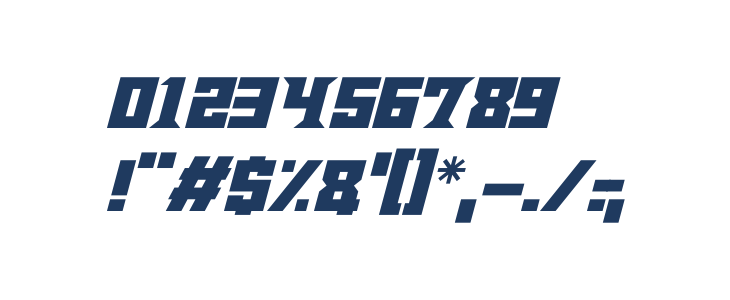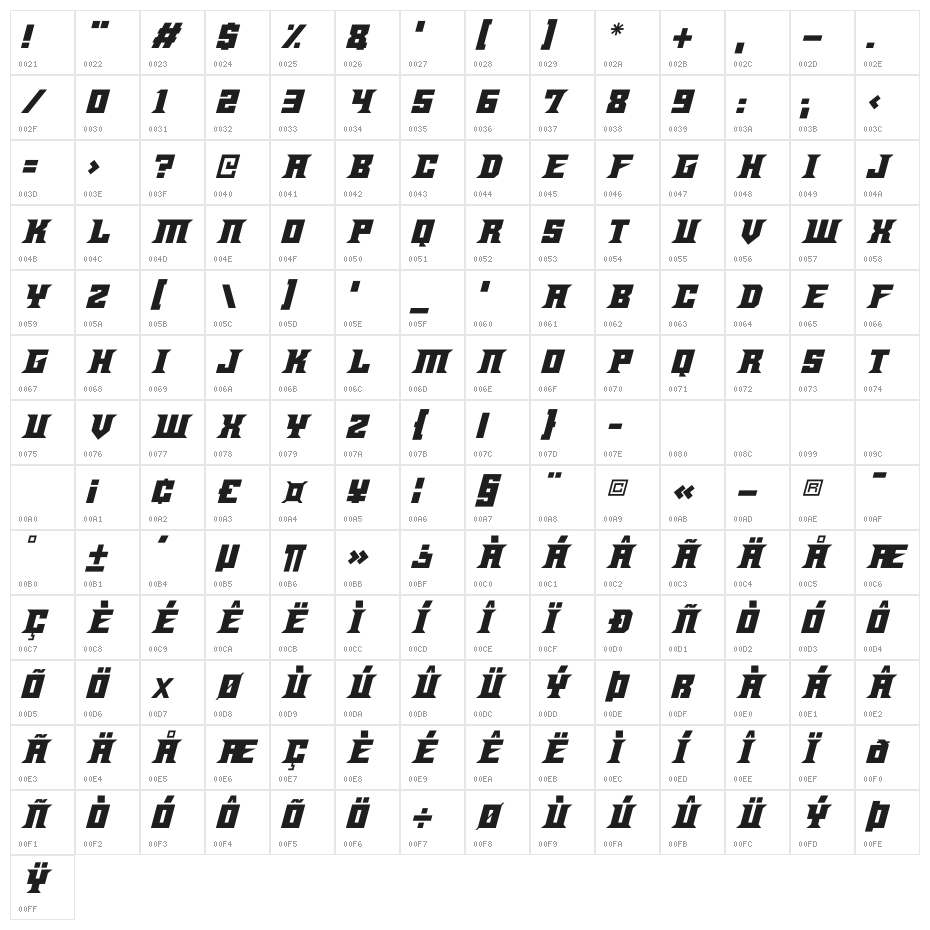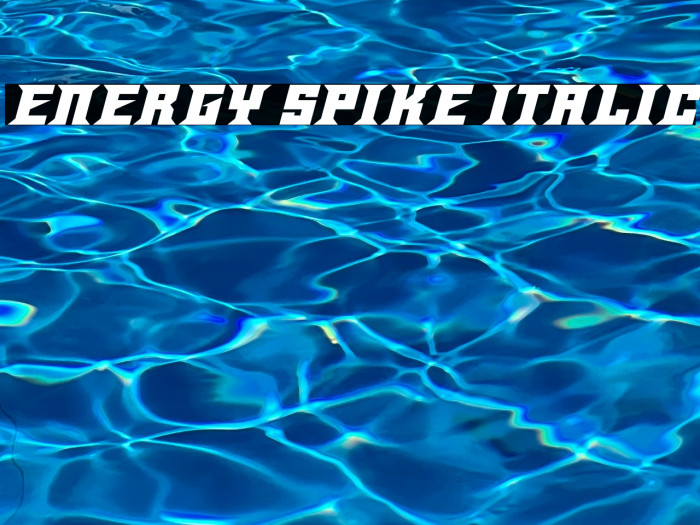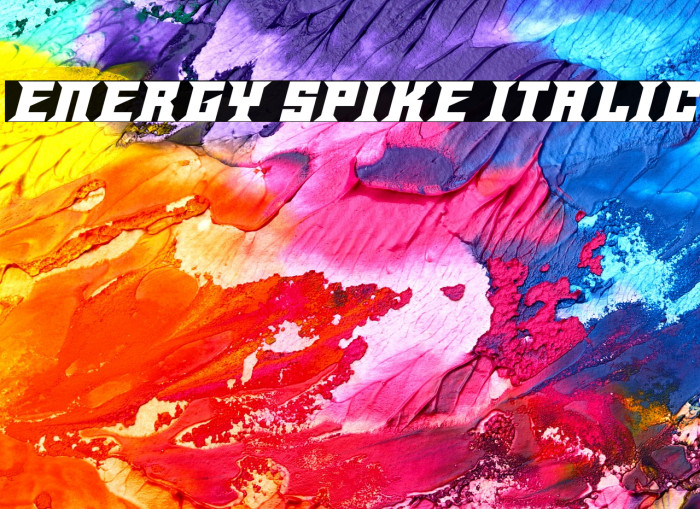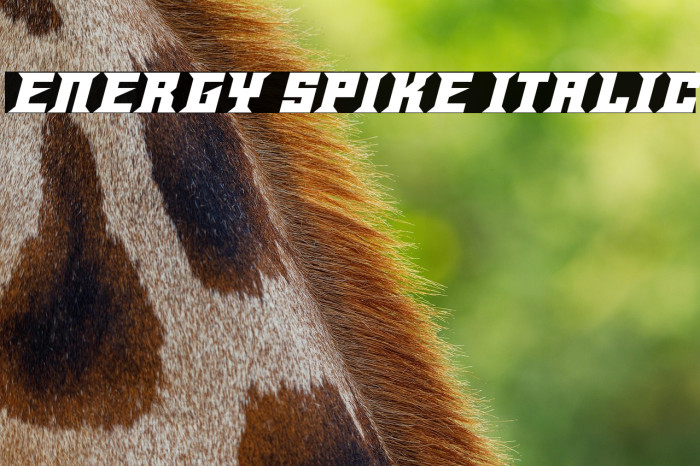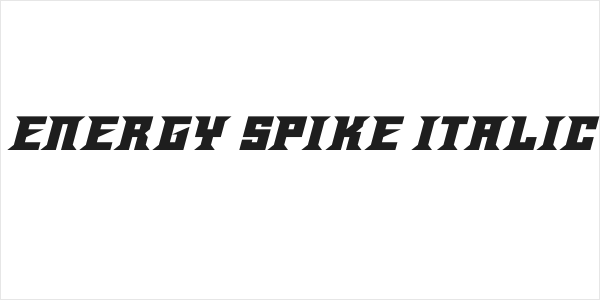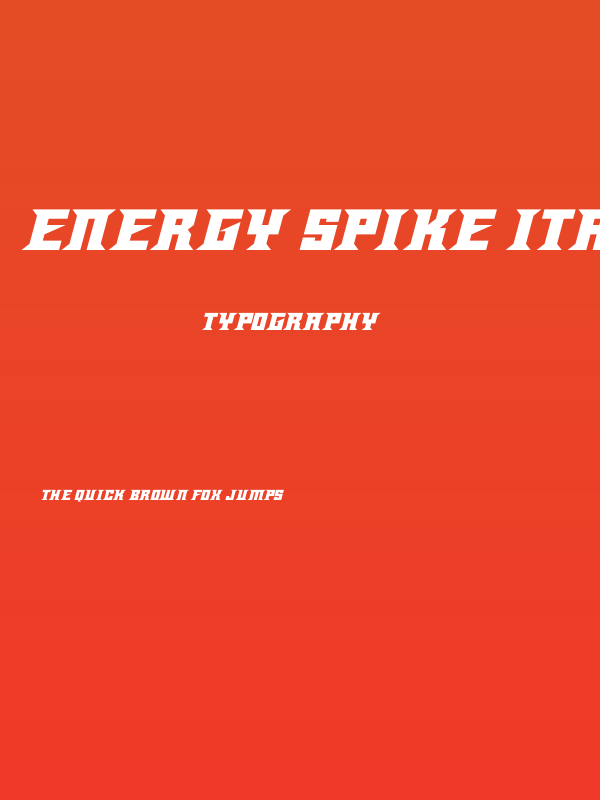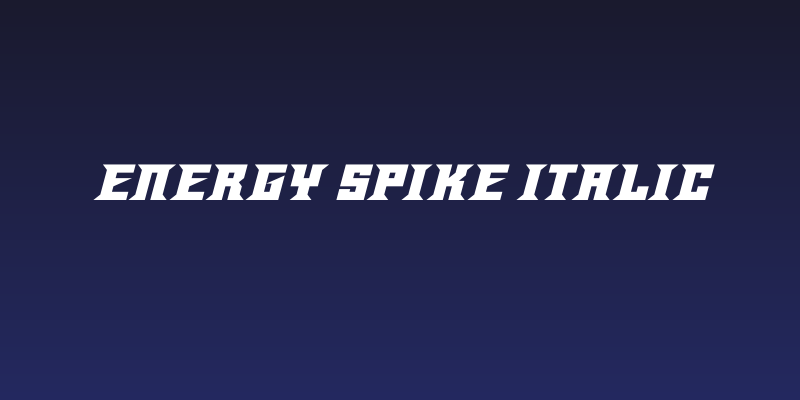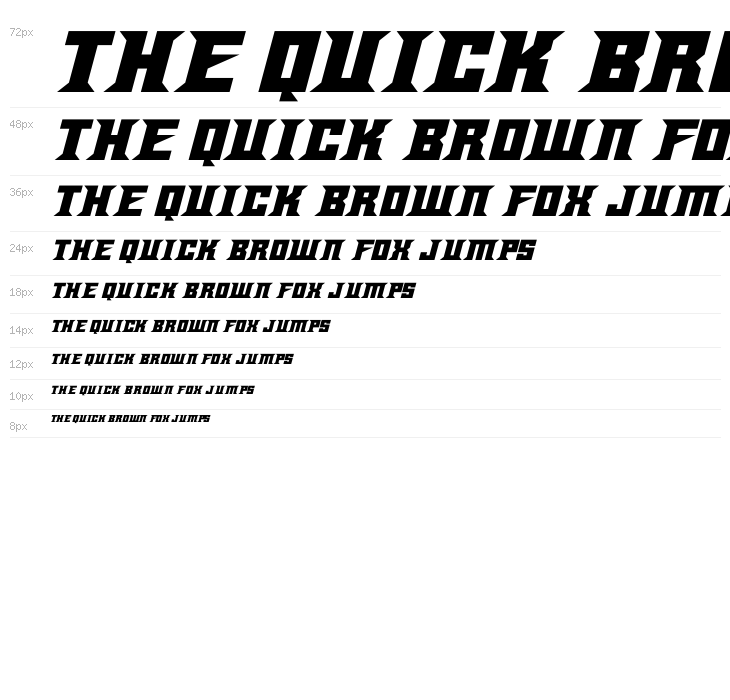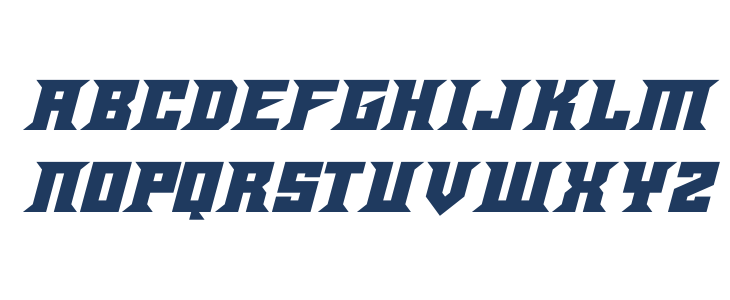
Energy Spike Italic Font
Energy Spike Italic Description
This font features a bold, dynamic style with sharp, angular lines that convey a sense of energy and movement. The italicized slant enhances its aggressive and forward-leaning appearance, making it ideal for attention-grabbing designs. The uppercase and lowercase letters maintain a consistent angular theme, while the numbers and special characters complement the overall aesthetic. The font's bold weight and condensed width contribute to its impactful presence, suitable for projects that require a strong visual statement.
Proposed ProjectsIdeal for sports branding, action movie posters, video game titles, and dynamic advertising campaigns.